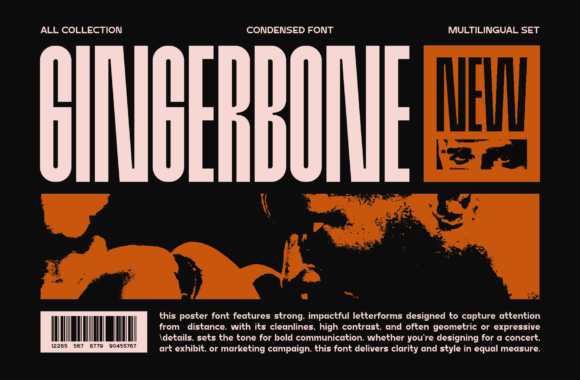
Gingerbone Font: The Ultimate Sans Serif Condensed Font for Your Design Needs
Are you tired of using the same old fonts in your designs? Look no further! We’re excited to introduce our new product, **Gingerbone** – a sleek and modern sans serif condensed font that’s perfect for adding a touch of sophistication to your graphic designs, print materials, and digital media. In this article, we’ll take a closer look at the characteristics of condensed fonts, the benefits of using them, and how Gingerbone can elevate your design game.
What is a Condensed Font?
A condensed font, also known as a narrow or slimmer font, is a type of font that features narrower or slimmer letterforms compared to regular or wide fonts. This type of font is designed to fit more characters within a given width, making it ideal for use in situations where space is limited. Condensed fonts are often used in various graphic designs, print materials, and other media because they have distinct advantages and unique characteristics.
Advantages of Using Condensed Fonts
So, why should you use condensed fonts in your designs? Here are some of the benefits of using condensed fonts:
- Space-saving: Condensed fonts are perfect for use in situations where space is limited, such as in headlines, titles, and captions.
- Improved readability: Condensed fonts can improve readability by allowing more text to fit within a given width, making it easier to read and understand.
- Enhanced visual appeal: Condensed fonts can add a touch of sophistication and elegance to your designs, making them more visually appealing.
- Versatility: Condensed fonts can be used in a variety of design applications, from print materials to digital media.
Introducing Gingerbone – Our New Sans Serif Condensed Font
We’re excited to introduce Gingerbone, our new sans serif condensed font that’s perfect for adding a touch of modernity to your designs. Gingerbone is a sleek and sophisticated font that’s designed to be versatile and easy to read. With its narrow letterforms and clean lines, Gingerbone is perfect for use in a variety of design applications, from headlines and titles to captions and body text.
Key Features of Gingerbone
So, what sets Gingerbone apart from other fonts? Here are some of the key features of our new sans serif condensed font:
- Sans serif design: Gingerbone features a clean and modern sans serif design that’s perfect for adding a touch of sophistication to your designs.
- Condensed letterforms: Gingerbone’s narrow letterforms make it perfect for use in situations where space is limited.
- Easy to read: Despite its condensed design, Gingerbone is easy to read and understand, making it perfect for use in body text and captions.
- Versatile: Gingerbone can be used in a variety of design applications, from print materials to digital media.
Using Gingerbone in Your Designs
So, how can you use Gingerbone in your designs? Here are some ideas to get you started:
- Headlines and titles: Use Gingerbone to add a touch of sophistication to your headlines and titles.
- Captions and body text: Use Gingerbone for captions and body text to add a touch of modernity to your designs.
- Print materials: Use Gingerbone in print materials, such as brochures, flyers, and posters, to add a touch of elegance.
- Digital media: Use Gingerbone in digital media, such as websites and social media graphics, to add a touch of sophistication.
Tips for Using Condensed Fonts Effectively
While condensed fonts like Gingerbone can be incredibly effective, there are some tips to keep in mind when using them:
- Use them sparingly: While condensed fonts can be effective, they can also be overwhelming if used too much. Use them sparingly to add emphasis and create visual interest.
- Choose the right font size: Condensed fonts can be difficult to read if they’re too small. Choose a font size that’s large enough to be readable.
- Consider the x-height: The x-height of a font refers to the height of the lowercase letters. A font with a high x-height can be easier to read.
In conclusion, Gingerbone is a sleek and modern sans serif condensed font that’s perfect for adding a touch of sophistication to your designs. With its narrow letterforms and clean lines, Gingerbone is perfect for use in a variety of design applications, from headlines and titles to captions and body text. Whether you’re a graphic designer, a marketer, or a business owner, Gingerbone is a great addition to your font library.